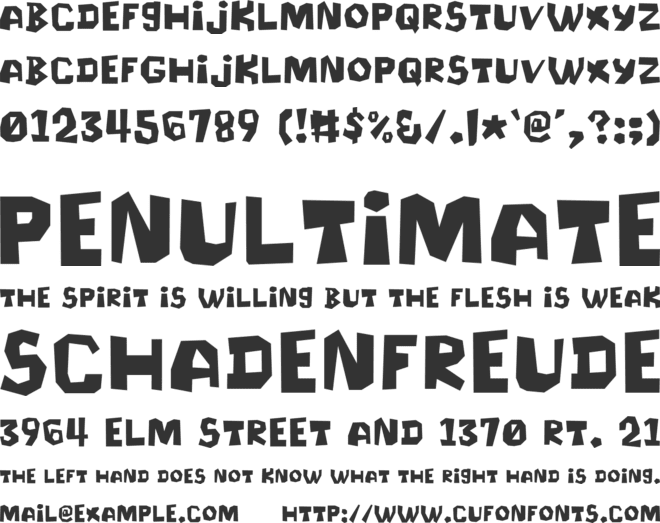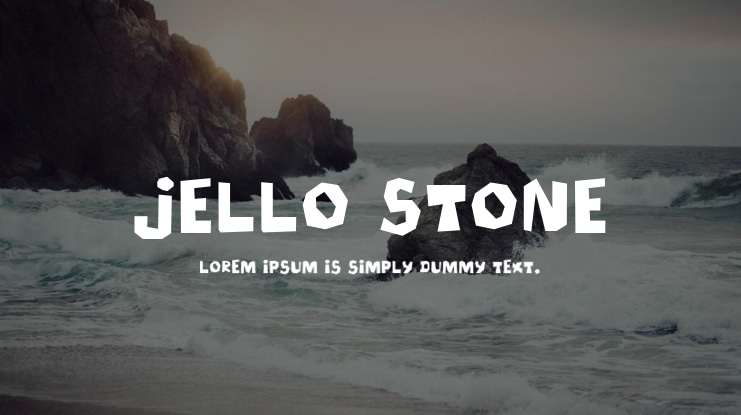
Jello Stone Font
Jello Stone is a rocky cartoon font that was created way back in August 2020, using FontForge on my aging small laptop that has since been broken and it's no longer working after all of those years still being worked; it appears to remind me of Stone Age. The name is a pun of a place in Wyoming called Yellowstone National Park (or simply just Yellowstone).